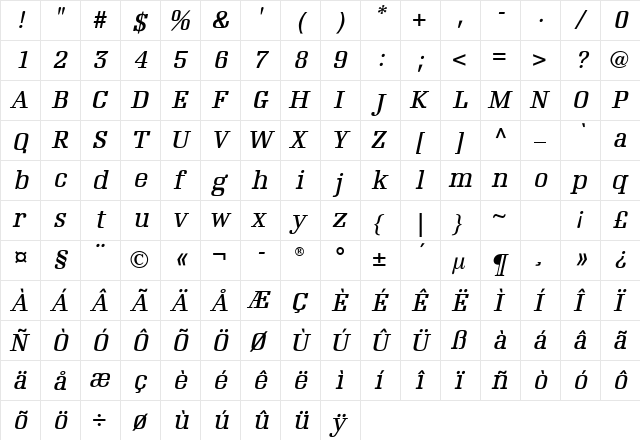
Napoleon Italic
Design Context for Napoleon Typeface
Napoleon is a composed and adaptable typeface that performs quietly and consistently across a wide range of design contexts. Its italic angle brings a sense of urgency and motion to the letterforms.
Pro Tip: Use Napoleon for emphasis, pull quotes, and subheadings where its slanted energy can add rhythm to the layout.